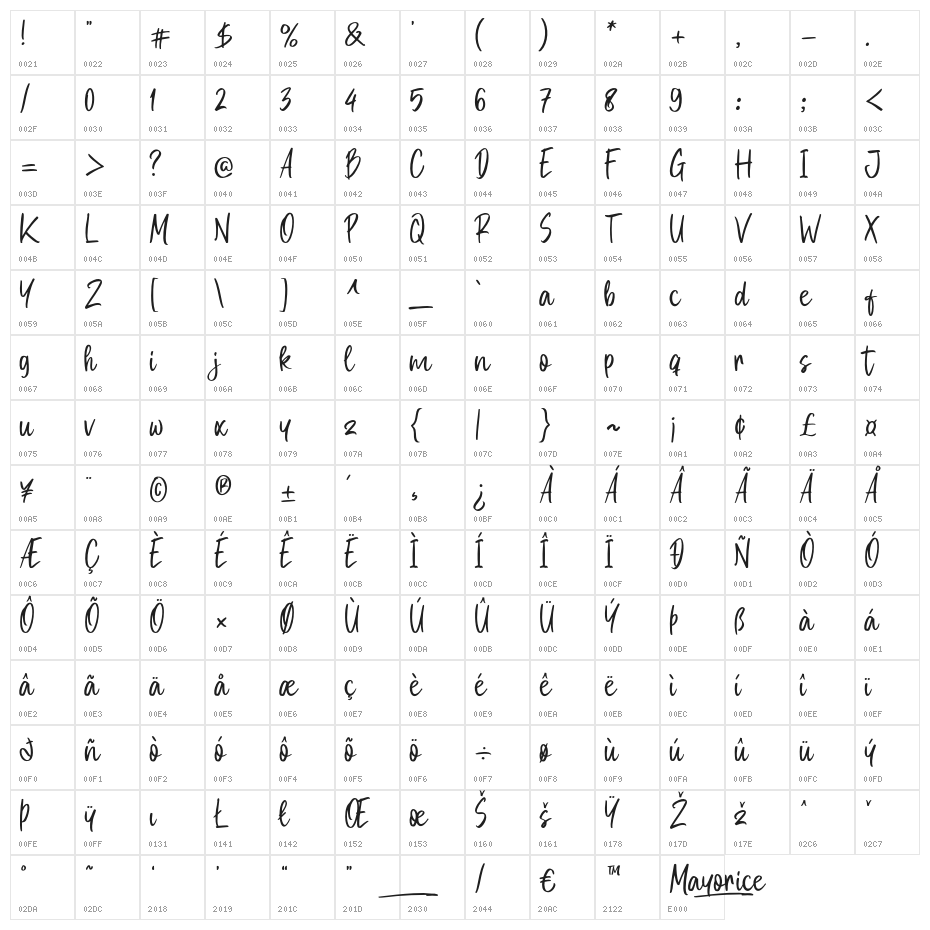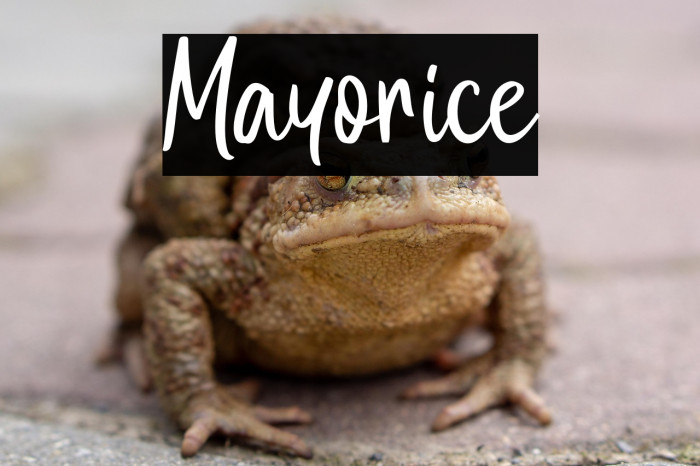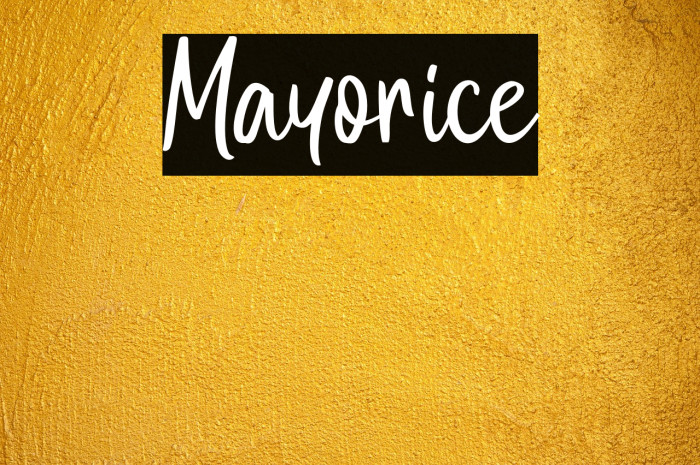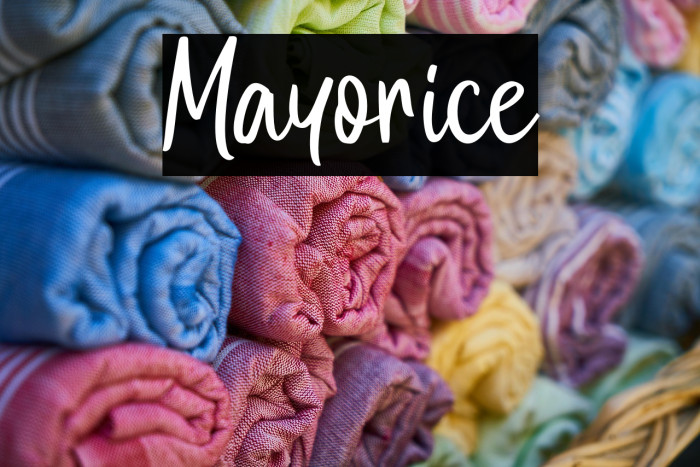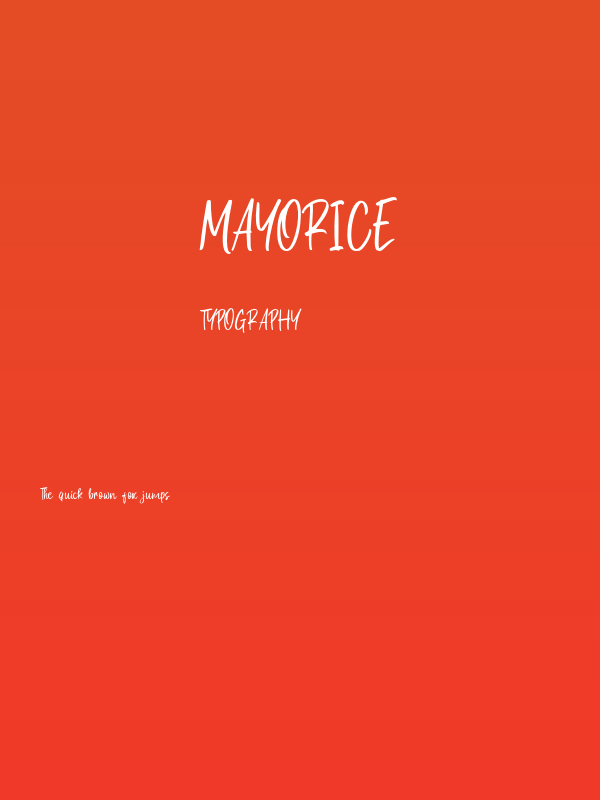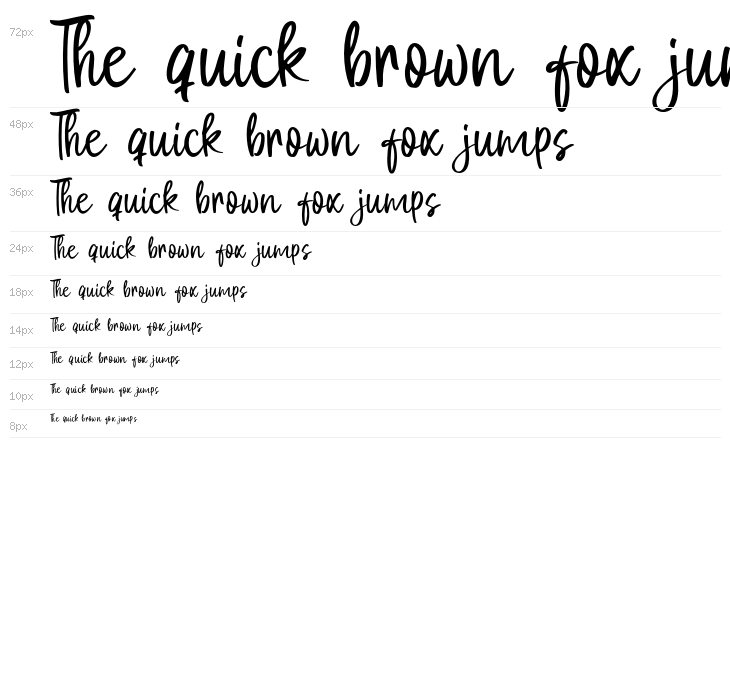
Mayorice Font
Mayorice Description
This font features a lively and energetic handwritten style, characterized by its fluid and dynamic strokes. The letters are slightly slanted, giving a sense of movement and personality. The uppercase letters are bold and prominent, while the lowercase letters maintain a consistent flow, enhancing readability. The numbers and special characters follow the same playful and informal aesthetic, making the font versatile for various creative applications. The overall appearance is casual yet stylish, suitable for projects that require a personal touch.
| Proposed Projects | Ideal for greeting cards, invitations, personal branding, social media graphics, and creative posters. |